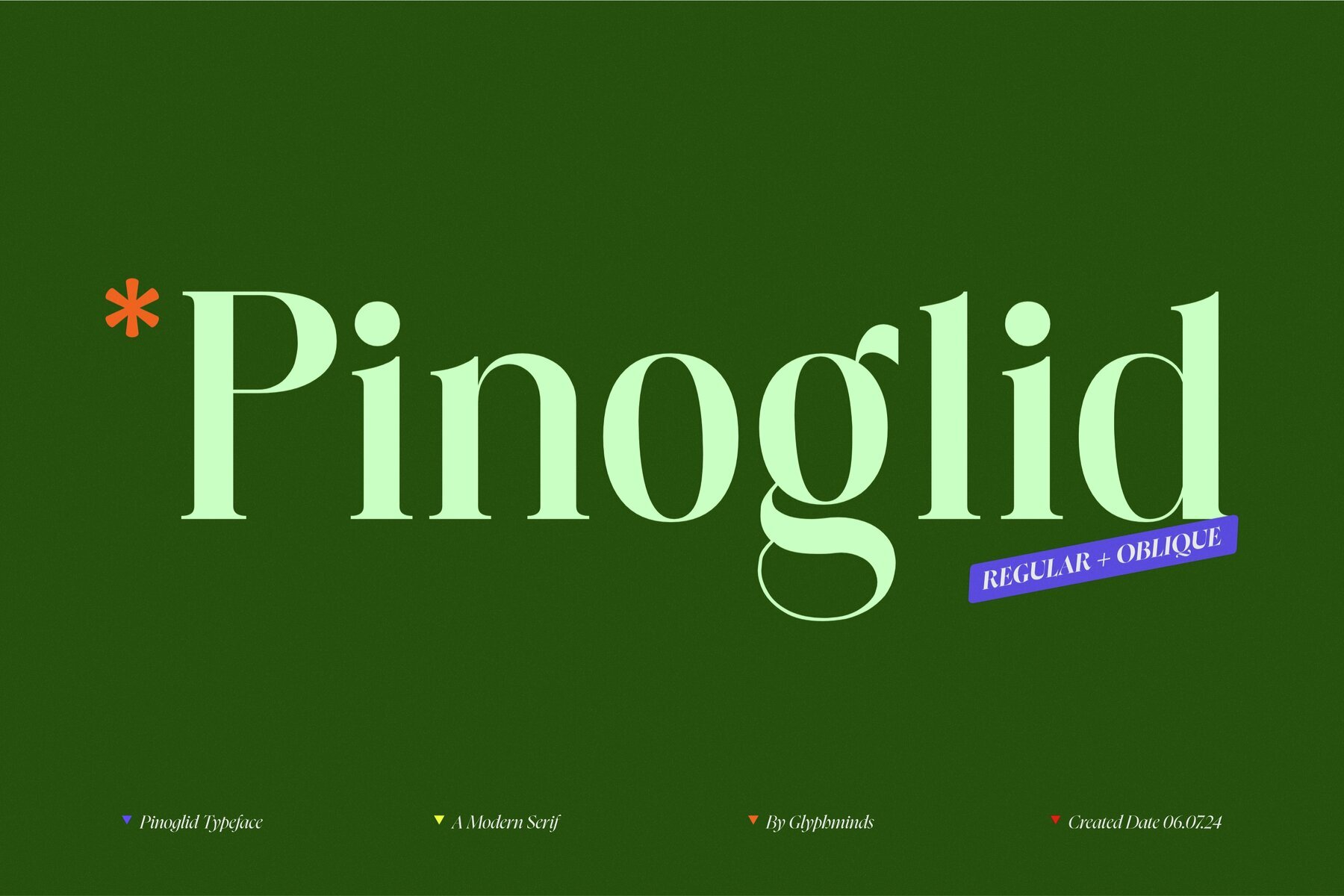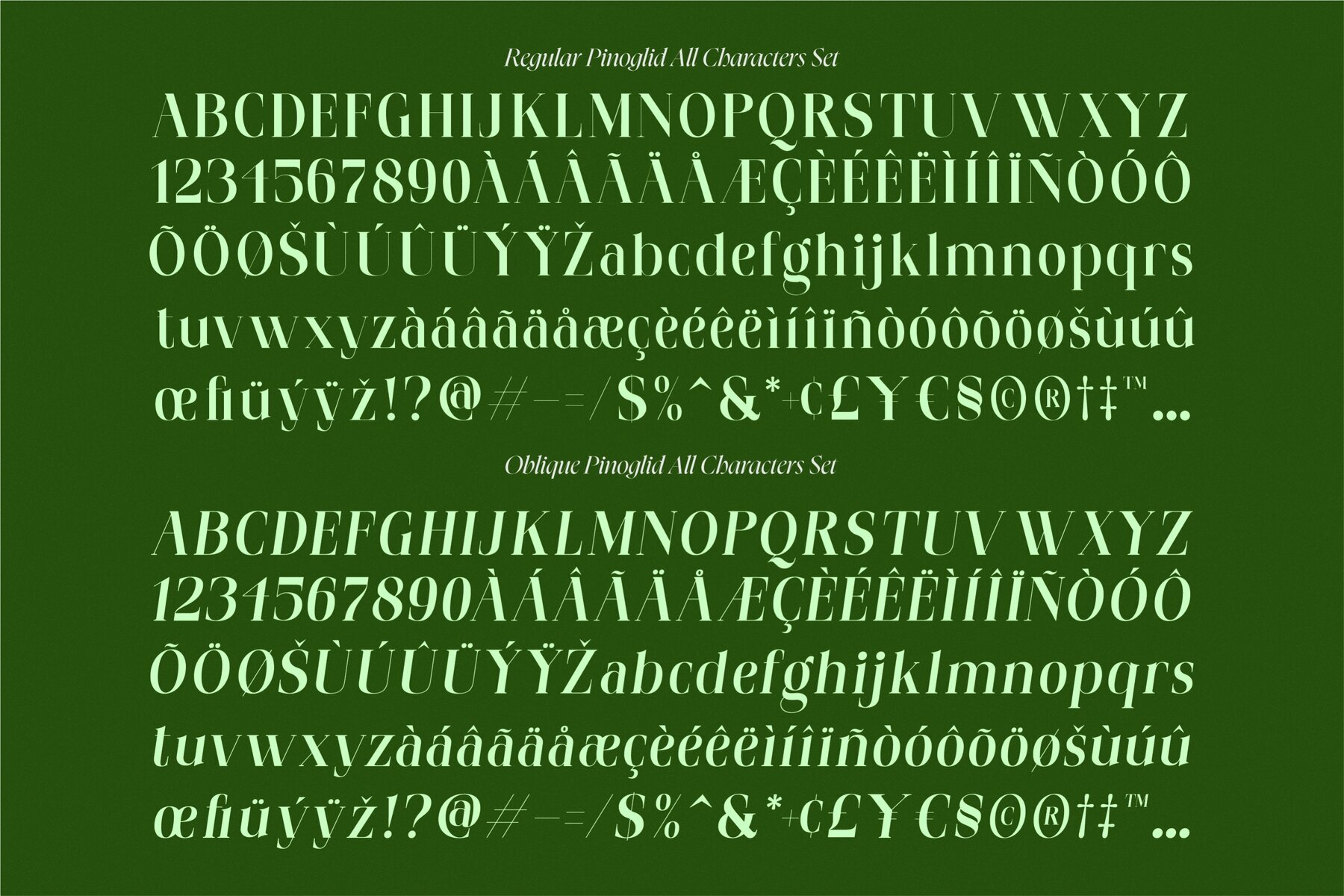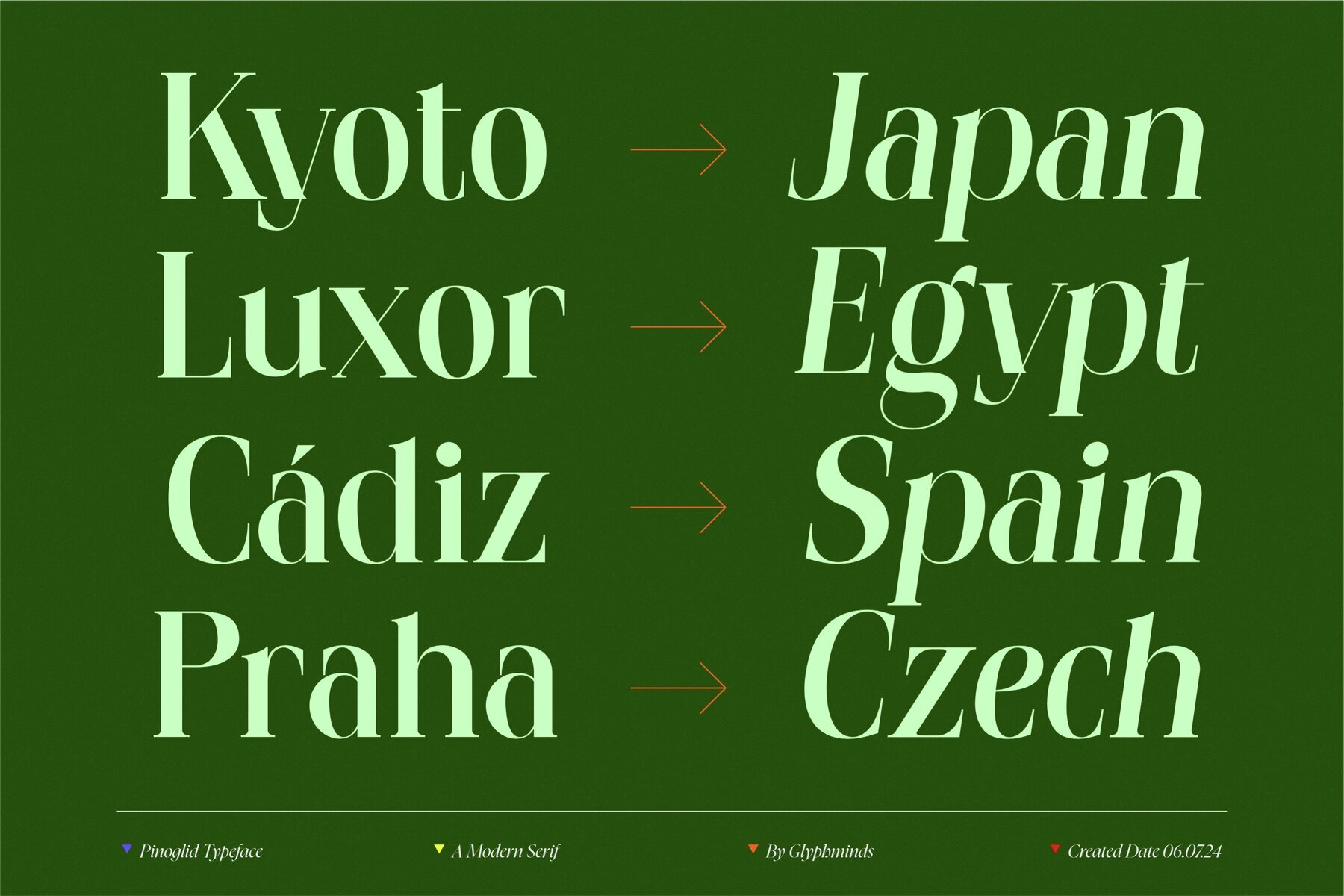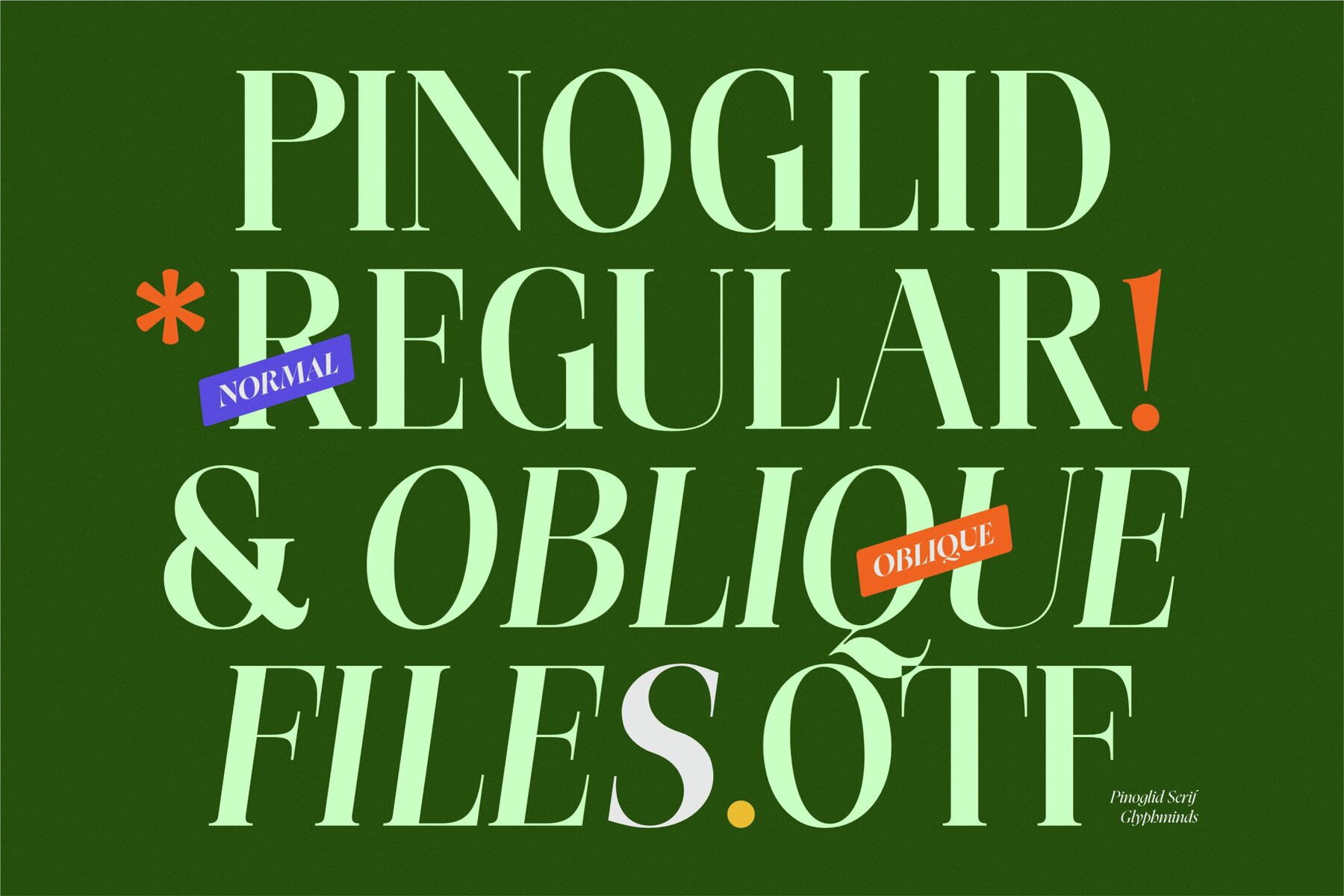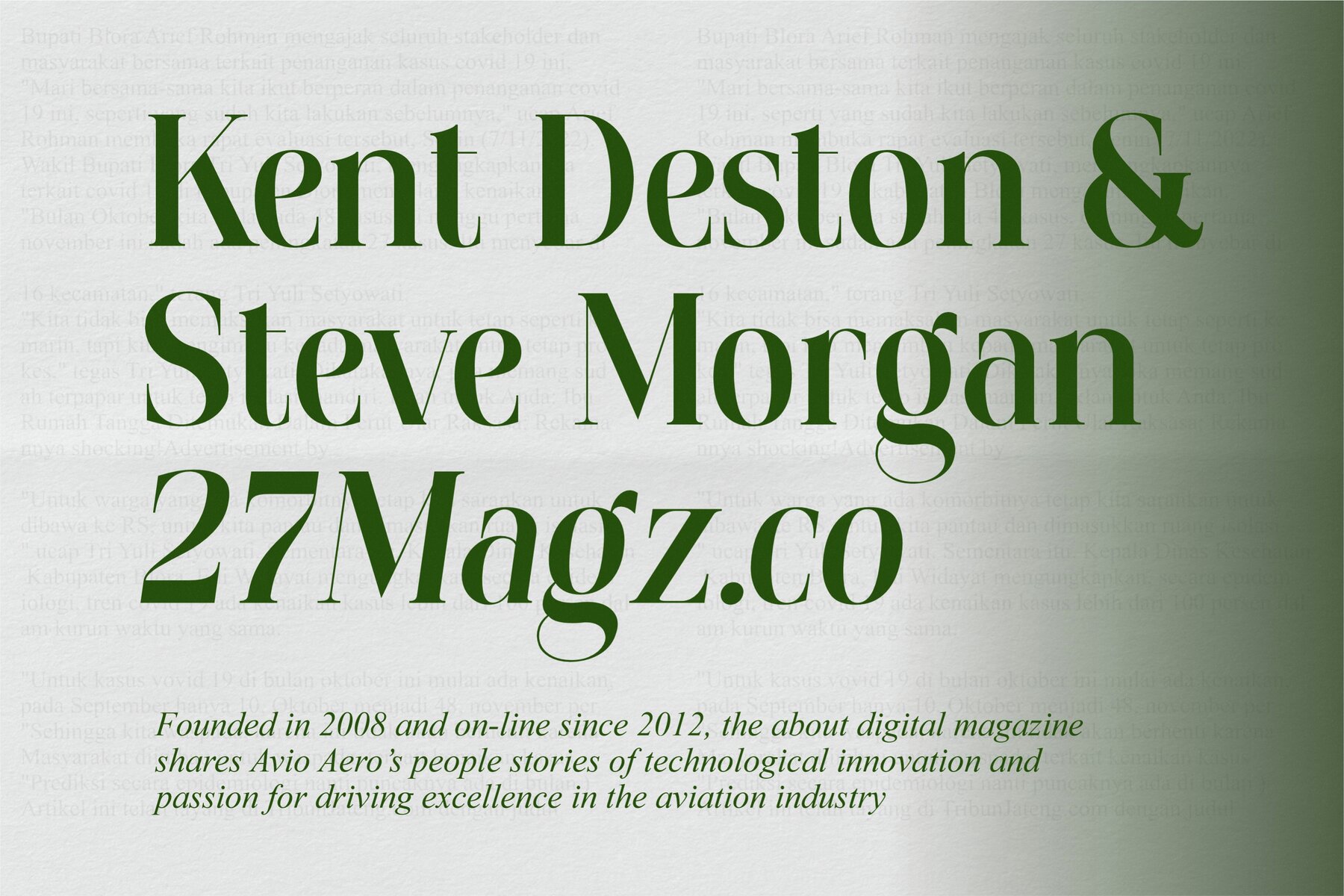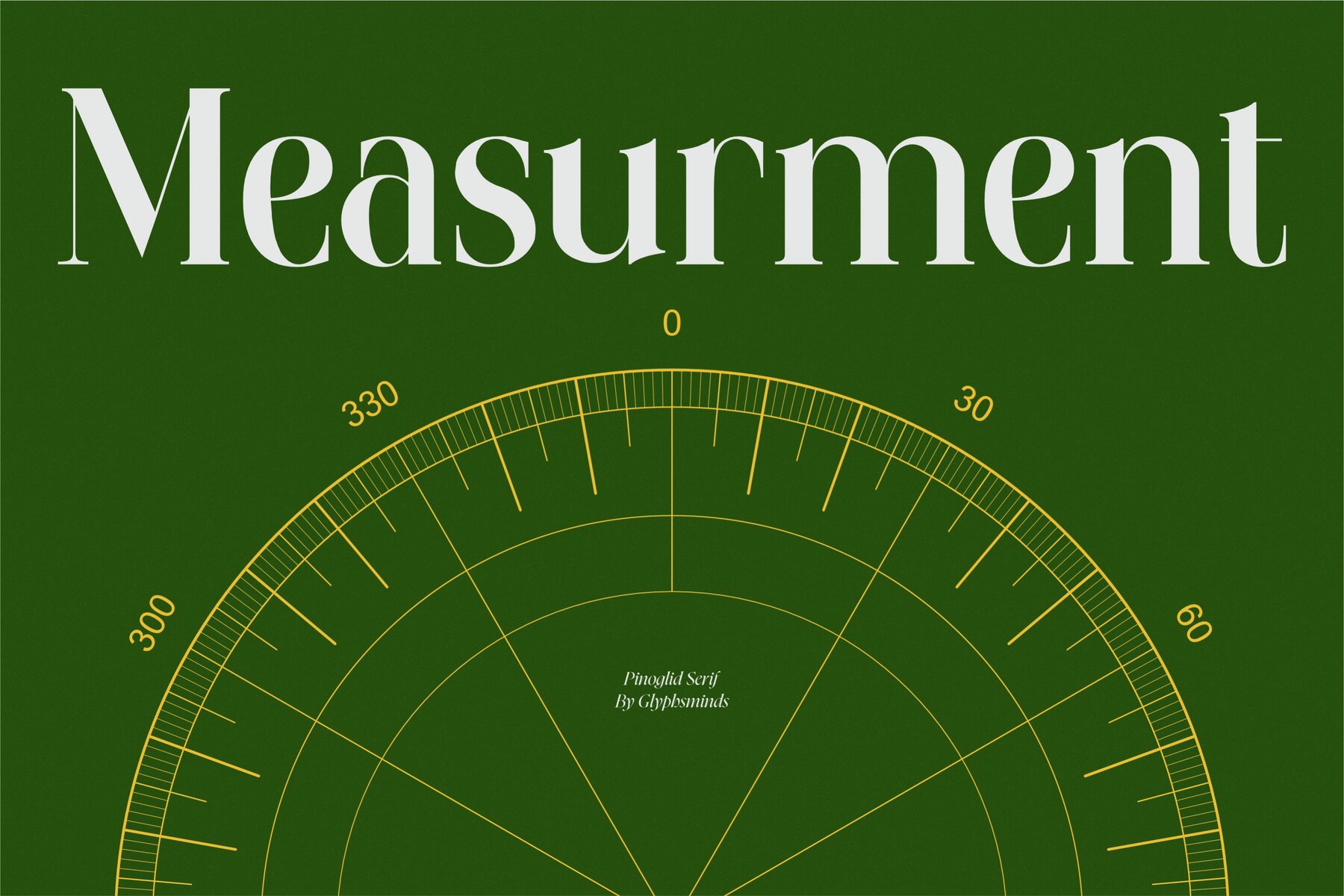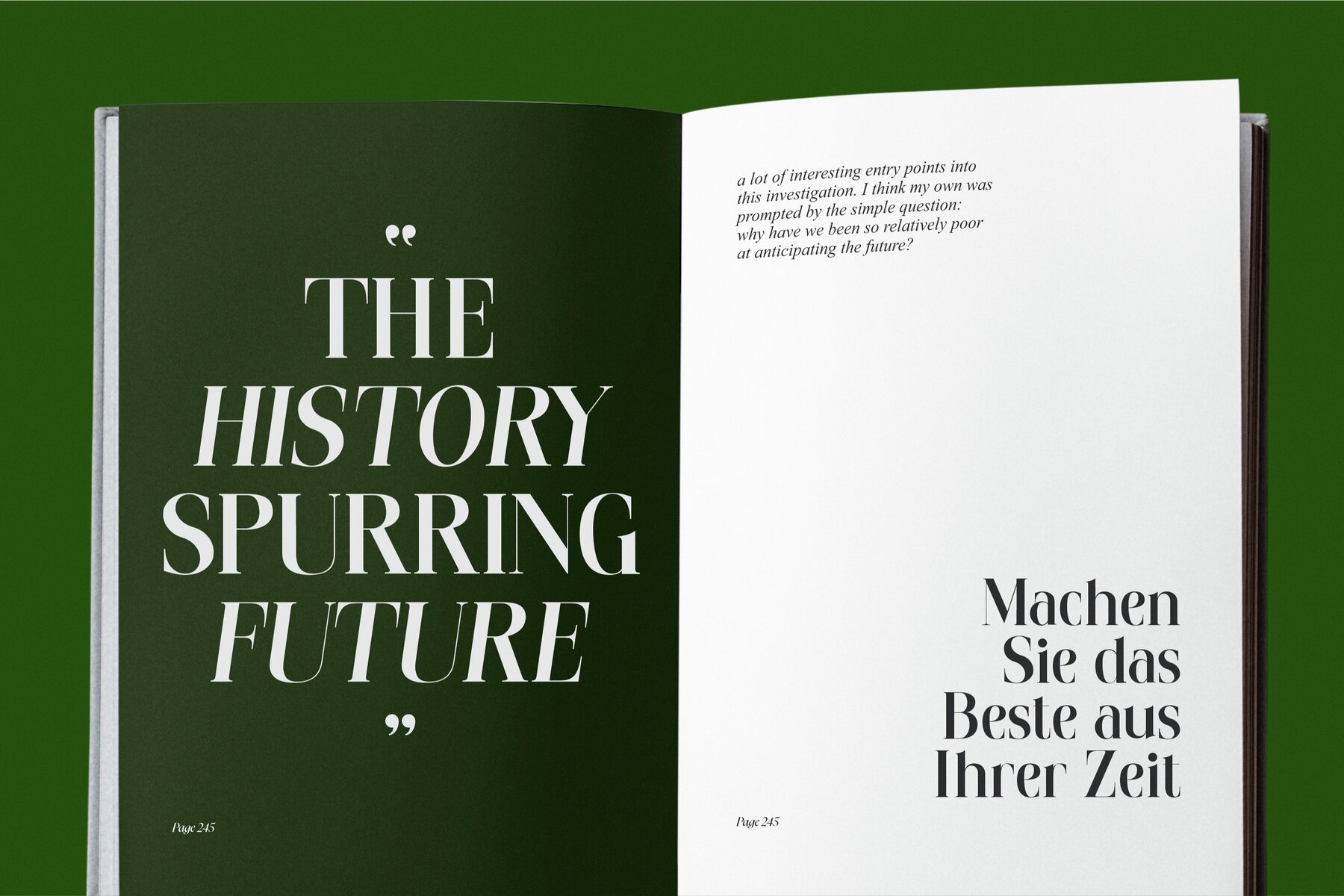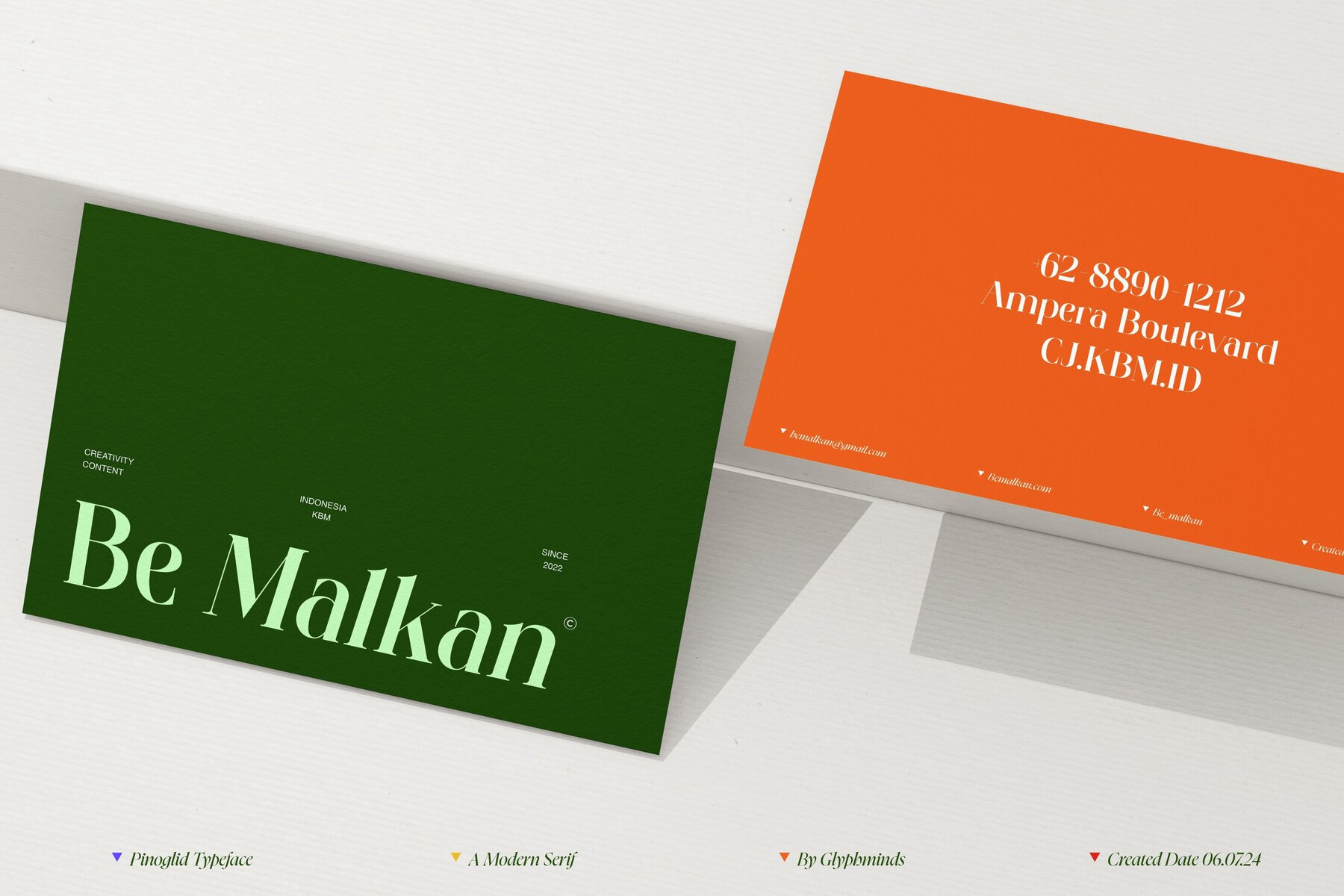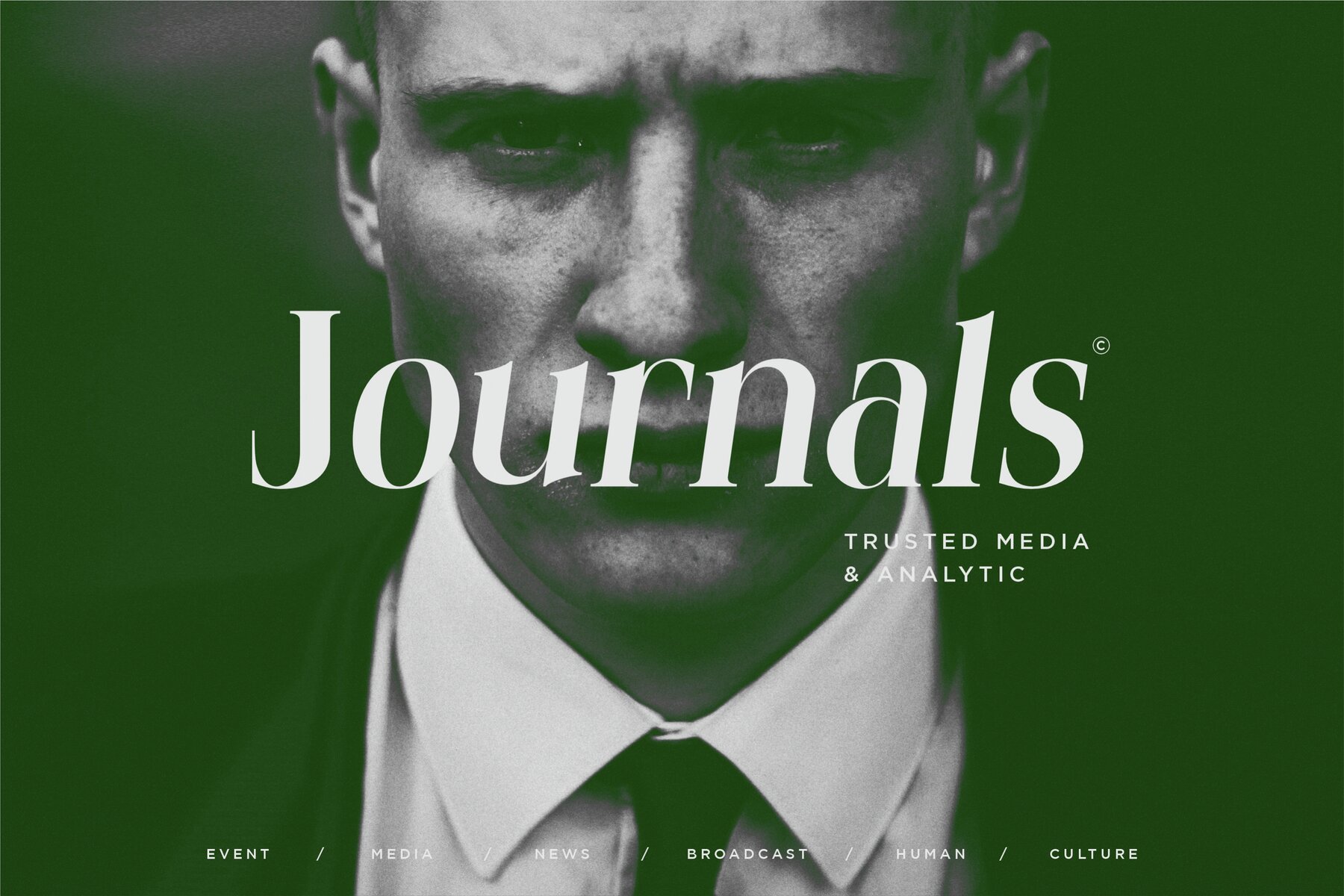
Pinoglid Font
Pinoglid is a modern serif typeface that seamlessly combines elegance with versatility. Available in regular and oblique styles, this typeface is ideal for a variety of design projects, from branding and editorial design to web applications. With its refined aesthetic, Pinoglid enhances both readability and visual appeal, making it a valuable addition to any designer's toolkit.
Created on 06.07.24, Pinoglid offers timeless sophistication that can transform your creative projects. Its elegant and adaptable design makes it suitable for diverse applications, ensuring your designs stand out with its clean and contemporary finish. Explore the potential of Pinoglid to enrich your typography projects with a touch of modernity and classic appeal.